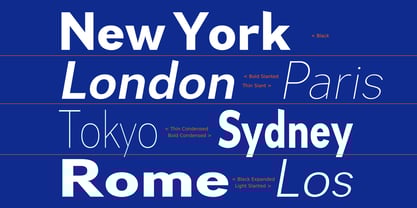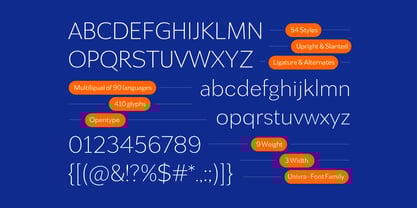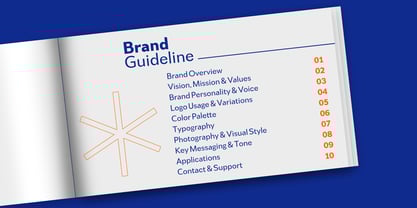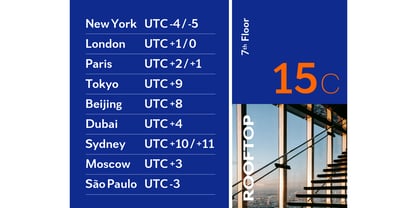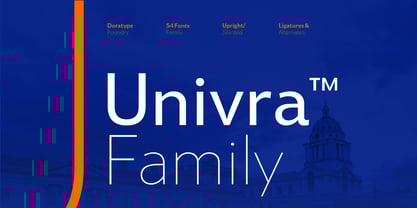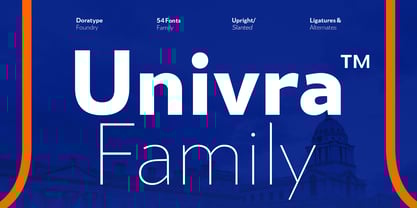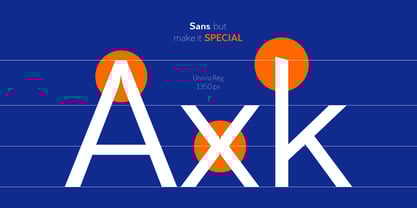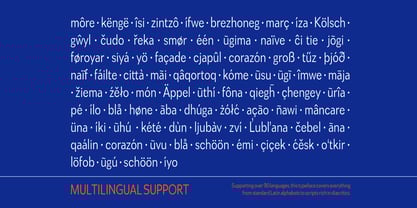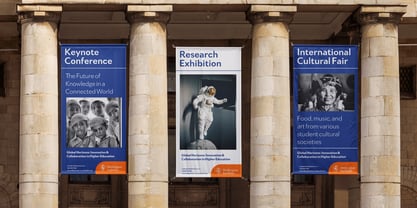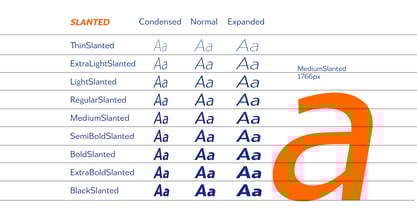
Univra
by Dora Typefoundry
The Univra Font Family was designed by Zahratul Laila and published by Dora Typefoundry. Univra contains 54 styles.
The Univra Family is a modern sans serif font family designed with a clean, minimalist, and versatile approach. Featuring bold, serif-free letterforms, Univra offers high legibility at various sizes, making it ideal for both digital and print design needs. With 54 style variations, ranging from thin to extremely bold weights, as well as upright and italic options, this font gives designers complete flexibility to create a clean and consistent visual hierarchy. Its clarity of form and proportions make Univra suitable for branding, visual identities, editorials, and modern interface design.
In addition to a variety of weights and styles, the Univra Family is also enriched with ligatures and alternates, allowing users to explore unique and expressive letter compositions. Its sans serif characters have a contemporary touch with precise geometric details, while maintaining a friendly and professional feel. The combination of elegant design and advanced typographic features makes the Univra Family the perfect choice for designers seeking functional and aesthetic typography for a variety of creative needs.
Designers: Zahratul Laila
Publisher: Dora Typefoundry
Foundry: Dora Typefoundry
Design Owner: Dora Typefoundry